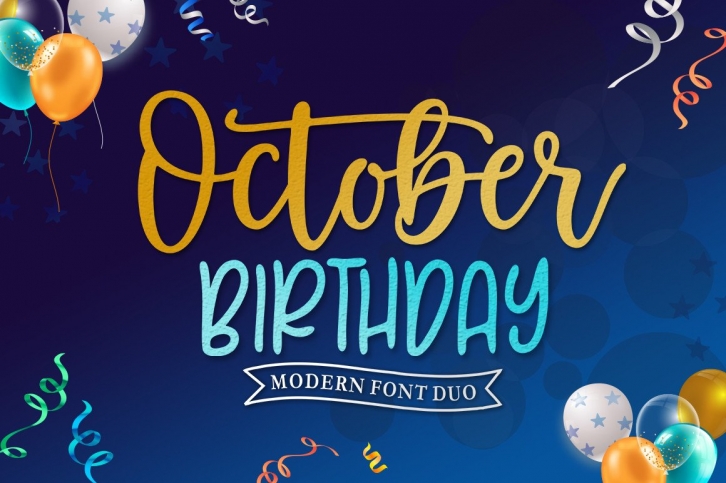
October Birthday is a chic and casual handwritten font. Fall for its joyful and relaxed style and use it to create gorgeous designs. This font is PUA encoded which means you can access all of the glyphs and swashes with ease!Â